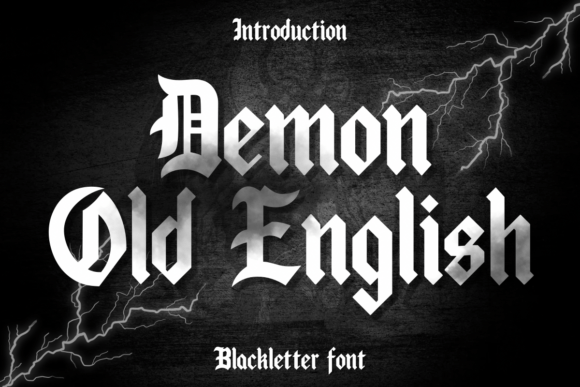
Demon Old English Font
Demon Old English is a blackletter font. You can use it for taking notes, writing a diary or making greeting cards. However you can still use it for other designs such as banners content mugs cards shirts stationery social media posts and more!